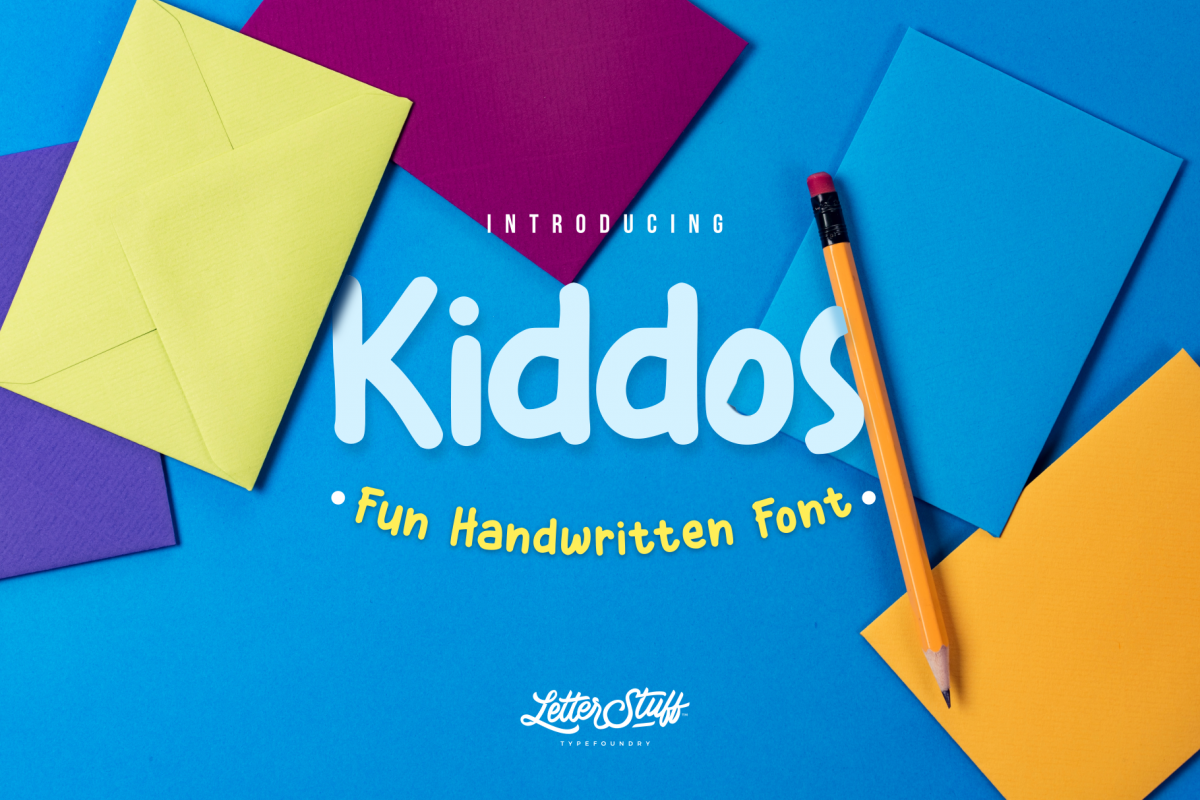
Kiddos Fun Handwritten font
Kiddos-Oblique
Kiddos-Regular
Kiddos was created based on marker with handwriting style. Fun and clean for your poster, comics, or quotes design